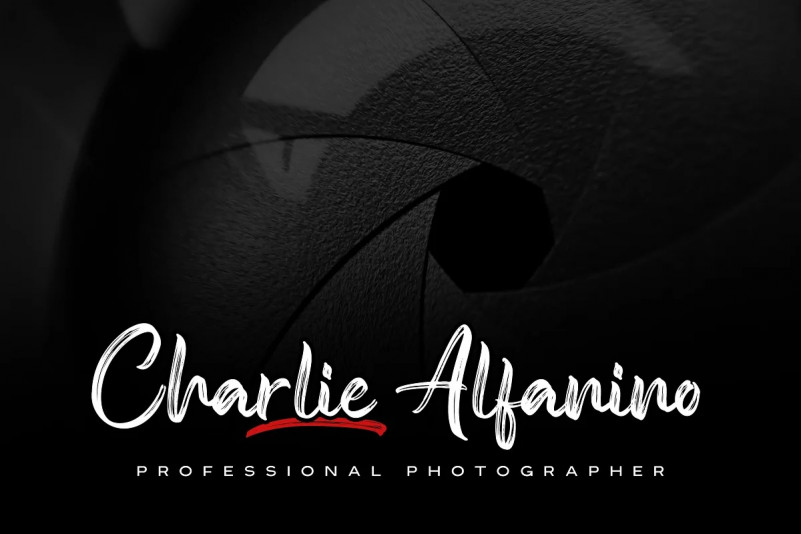
Someone Font is a textured handbrush font with sharp and beautiful letters that create fonts that are modern, trendy and elegant.
This brush font is great for your design projects such as watermark on photography, branding, photography, invitation, watermark, advertisements, product designs, stationery, wedding designs, label, product packaging, special events or anything that need handwritting taste.
Someone Font - Textured HandbrushFont
Type: Script